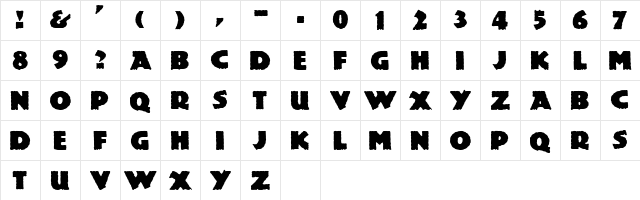
Lemiesz (Plain):001.001 (Plain):001.001
Design Context for Lemiesz (Plain):001.001 Typeface
Lemiesz (Plain):001.001 is a composed and adaptable typeface that performs quietly and consistently across a wide range of design contexts.